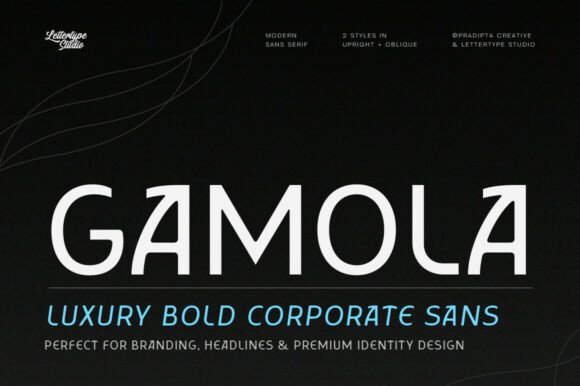
Gamola Font: Elevate Your Brand with a High-Impact Typeface
In the world of typography, a font can make or break a brand’s identity. A well-designed font can elevate a brand’s presence, convey its message, and leave a lasting impression on its audience. One such font that has been making waves in the design community is Gamola. In this article, we’ll delve into the world of Gamola Font, exploring its features, benefits, and uses.
What is Gamola Font?
Gamola is a high-impact typeface created for premium branding and bold corporate identity. With its clean geometric structure and refined proportions, Gamola brings a strong yet sophisticated feelβideal for logos, branding kits, tech companies, business presentations, and editorial headlines. Its bold and confident style makes it stand out while maintaining a modern elegance.
Key Features of Gamola Font
- Clean Geometric Structure: Gamola’s design is based on a clean geometric structure, which gives it a modern and sleek look.
- Refined Proportions: The font’s refined proportions make it easy to read and understand, even at small sizes.
- Bold and Confident Style: Gamola’s bold and confident style makes it perfect for headlines, logos, and branding kits.
- Modern Elegance: Despite its bold style, Gamola maintains a modern elegance that makes it suitable for a wide range of design applications.
Styles and Flexibility
Gamola is available in two styles: Upright and Oblique, offering flexibility for different design moods and layouts. This means that designers can choose the style that best fits their project’s requirements, from formal and professional to creative and playful.
Character Set and Support
Gamola features a full uppercase and lowercase letters, numbers, punctuation, and multilingual support with accented characters. This makes it an excellent choice for global brands that need to communicate with diverse audiences.
Uses of Gamola Font
Gamola is a versatile font that can be used in a variety of design applications, including:
- Logos and Branding Kits: Gamola’s bold and confident style makes it perfect for logos and branding kits that need to make a strong impression.
- Tech Companies: Gamola’s modern elegance and clean structure make it an excellent choice for tech companies that need to convey innovation and sophistication.
- Business Presentations: Gamola’s clear and readable design makes it ideal for business presentations that need to communicate complex information in a clear and concise manner.
- Editorial Headlines: Gamola’s bold and confident style makes it perfect for editorial headlines that need to grab the reader’s attention.
Benefits of Using Gamola Font
There are several benefits to using Gamola Font in your design projects, including:
- Improved Brand Presence: Gamola’s bold and confident style can help elevate your brand’s presence and make it more memorable.
- Enhanced Readability: Gamola’s clear and readable design makes it easy for audiences to understand and engage with your message.
- Flexibility: Gamola’s two styles (Upright and Oblique) offer flexibility for different design moods and layouts.
- Multilingual Support: Gamola’s multilingual support with accented characters makes it an excellent choice for global brands.
Tips for Using Gamola Font
Here are some tips for using Gamola Font effectively in your design projects:
- Use it for Headlines and Titles: Gamola’s bold and confident style makes it perfect for headlines and titles that need to grab the reader’s attention.
- Pair it with Other Fonts: Gamola can be paired with other fonts to create a unique and visually appealing design.
- Experiment with Different Sizes: Gamola’s clear and readable design makes it suitable for use at a wide range of sizes, from small captions to large headlines.
In conclusion, Gamola Font is a high-impact typeface that can elevate your brand’s presence and make it more memorable. With its clean geometric structure, refined proportions, and bold and confident style, Gamola is perfect for logos, branding kits, tech companies, business presentations, and editorial headlines. Its flexibility, multilingual support, and clear readability make it an excellent choice for a wide range of design applications.